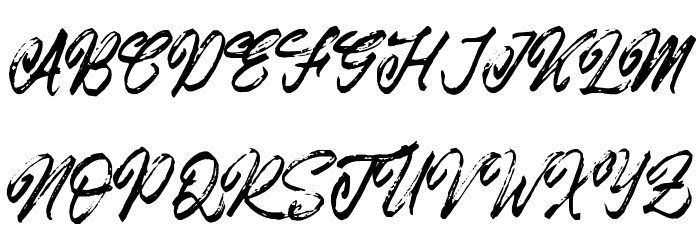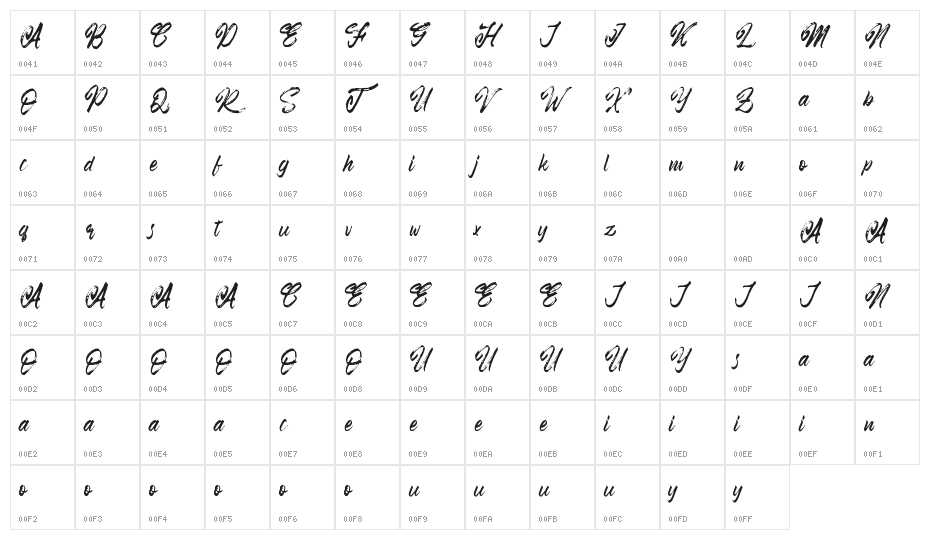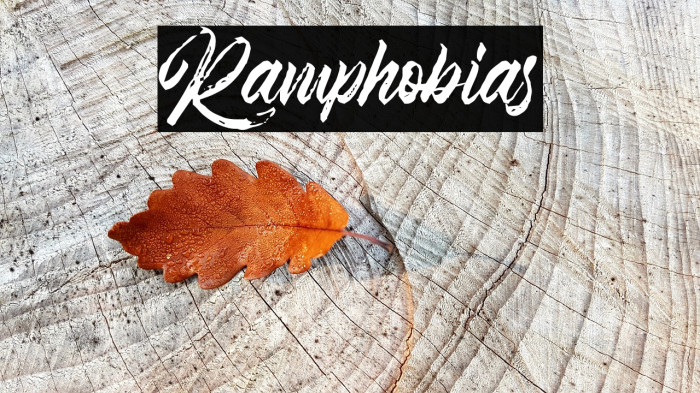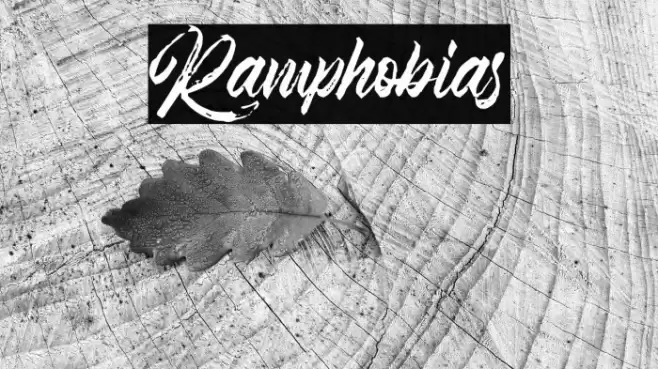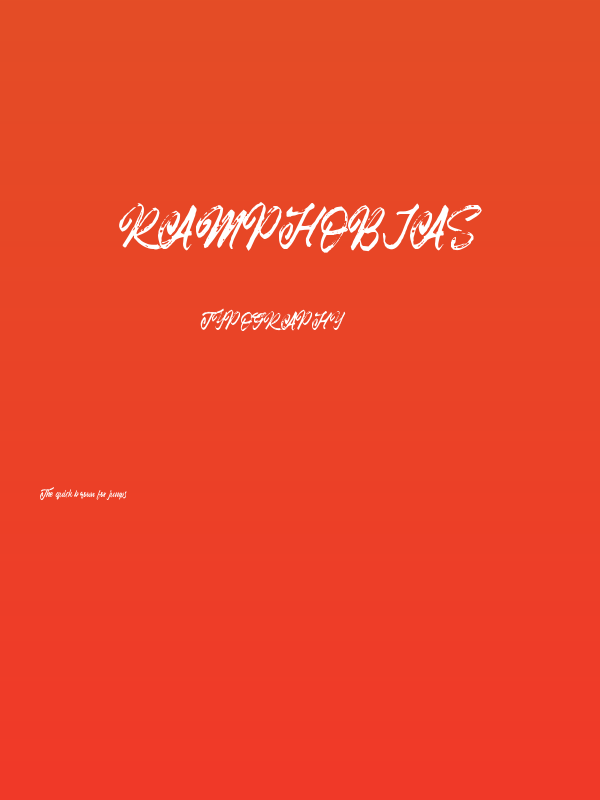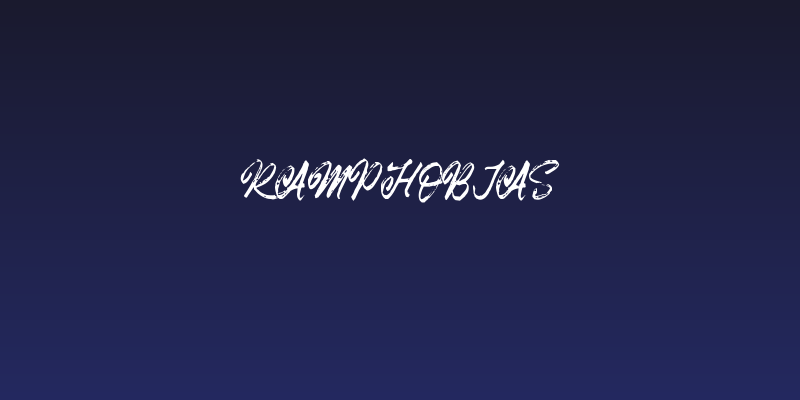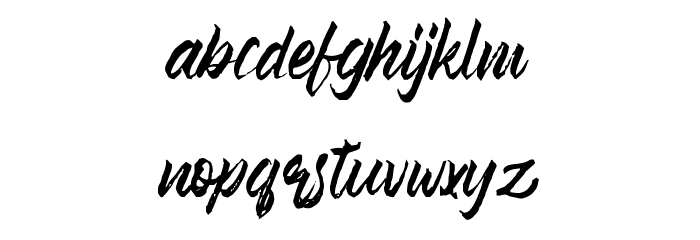
Ramphobias Font
Ramphobias Description
This font features a bold, expressive script style with a textured, brush-like appearance. The characters are fluid and dynamic, with a sense of movement and energy. The uppercase letters are particularly striking, with sweeping curves and dramatic flourishes. The lowercase letters maintain a consistent style, offering a harmonious blend with the uppercase. The numbers and special characters are equally bold, maintaining the overall aesthetic. The font's rough, hand-painted look gives it a unique, artistic feel, making it suitable for creative and eye-catching designs.